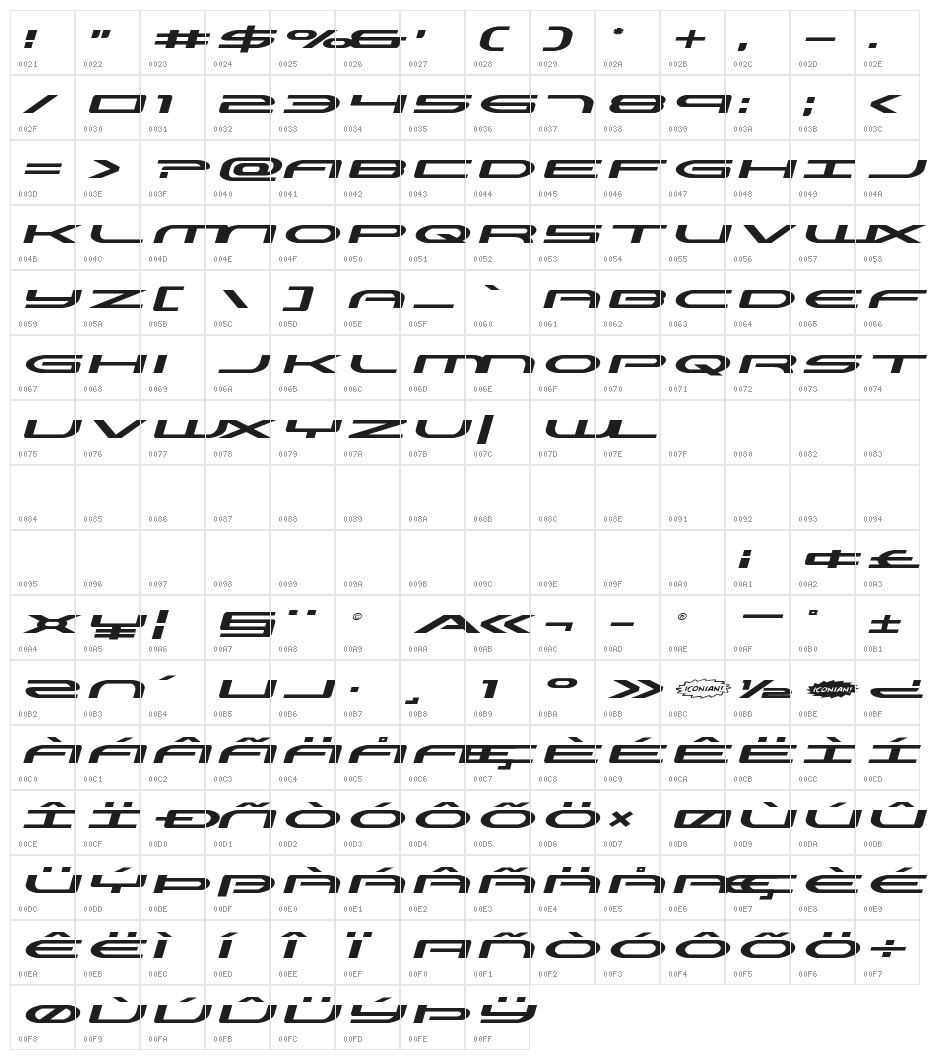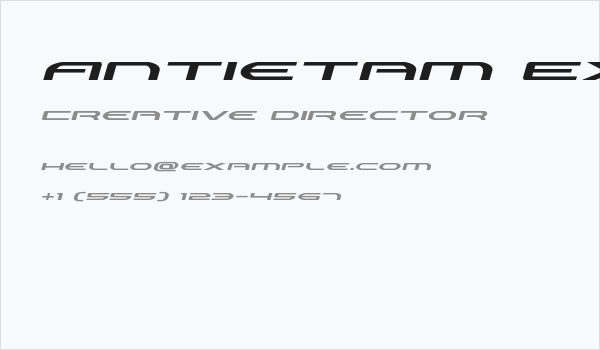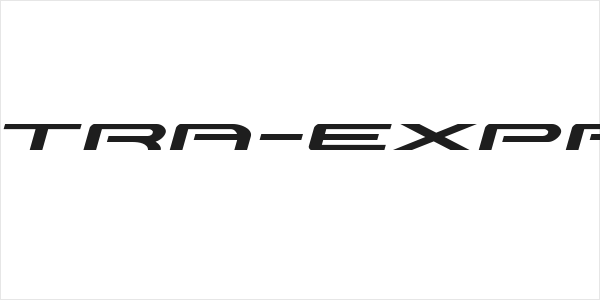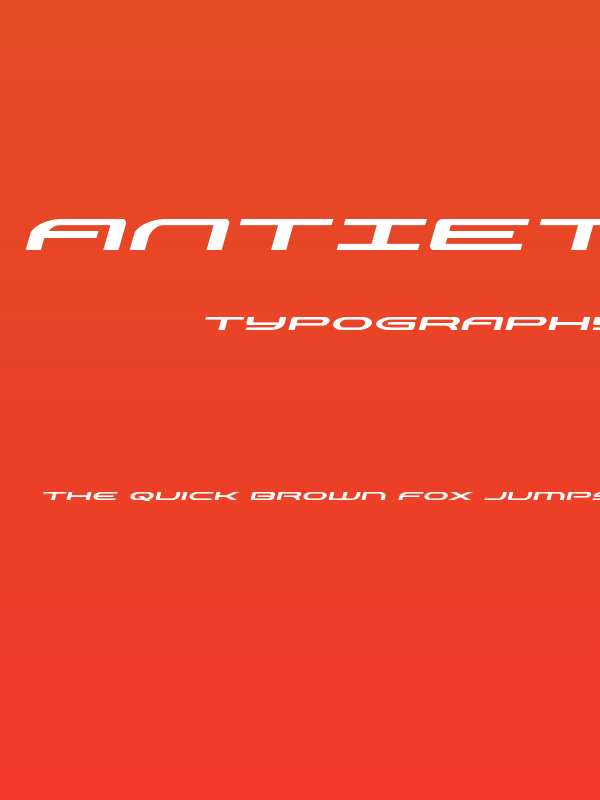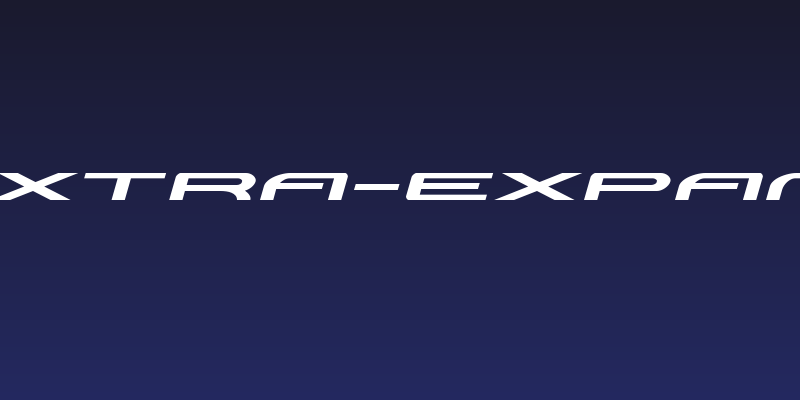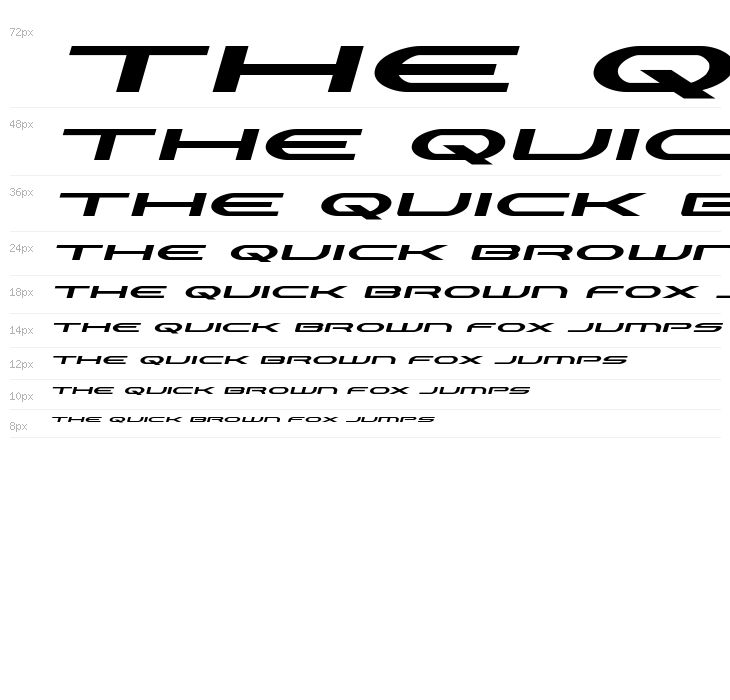
Antietam Extra-Expanded Italic Font
Antietam Extra-Expanded Italic Description
This font features a sleek, futuristic design with an italicized slant, giving it a dynamic and forward-moving appearance. The characters are extra expanded, providing a wide stance that enhances readability while maintaining a modern aesthetic. The strokes are consistent in thickness, offering a medium contrast that balances boldness with clarity. The overall style is distinctly modern, making it suitable for contemporary design projects. The font includes a full set of uppercase and lowercase letters, numbers, and a variety of special characters, ensuring versatility in usage.
| Proposed Projects | Ideal for technology branding, sci-fi posters, modern advertising, and digital interfaces. |